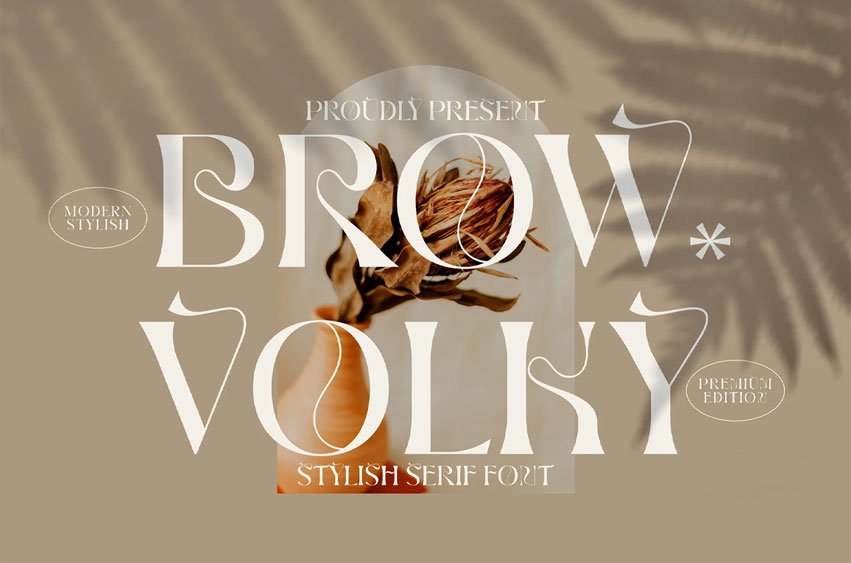
Brown Volky Font is a stylish serif font crafted with bold proportions and elegant curves, blending modern fashion aesthetics with a premium editorial feel. Its distinctive letterforms, sharp contrasts, and refined details give it strong personality—perfect for designs that want to stand out while staying classy.
- Stylish serif with modern editorial character
- Bold shapes with elegant contrast
- Eye-catching alternates for unique typography
- Strong presence for headlines and titles
Perfect For:
- Fashion & lifestyle branding
- Editorial layouts and magazine spreads
- Premium posters and covers
- Beauty and luxury campaigns
- Statement headlines and typography-led designs
Bold, elegant, and expressive — a serif designed to elevate modern visual storytelling.